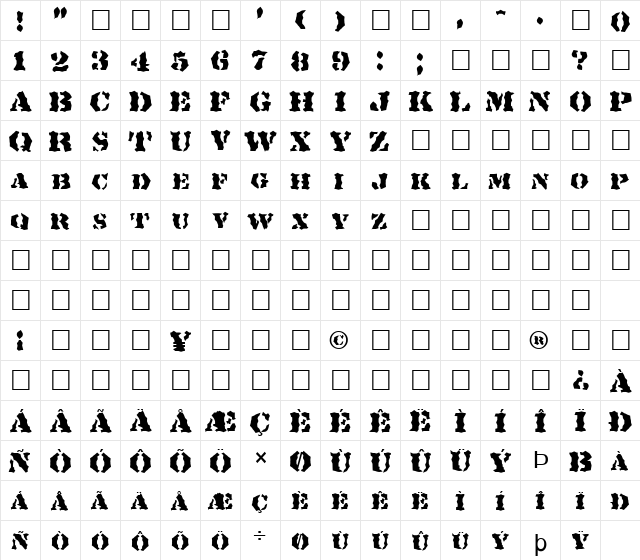
FZ WACKY 18 Normal Font Preview
FZ WACKY 18 Normal
FZ WACKY 18 Normal Font Details
Design Context for FZ WACKY 18 Typeface
FZ WACKY 18 is a composed and adaptable typeface that performs quietly and consistently across a wide range of design contexts.